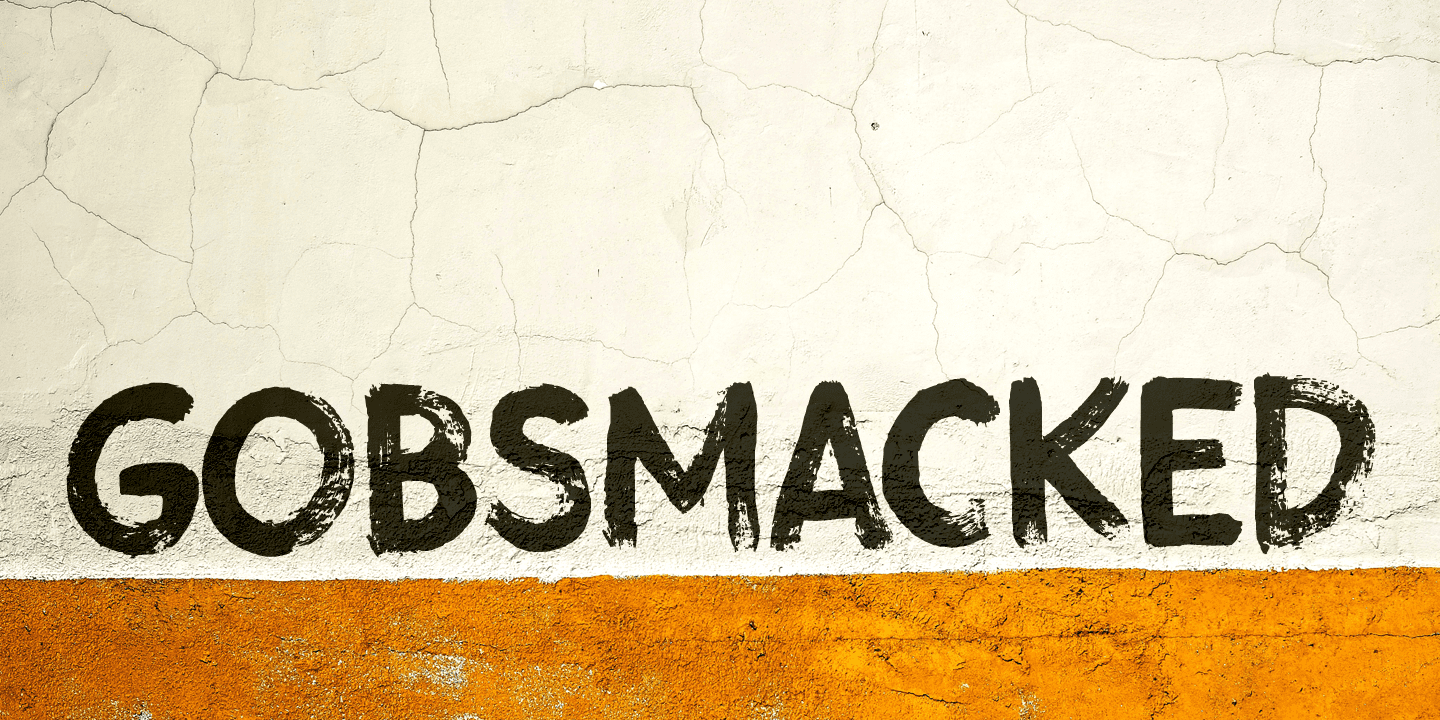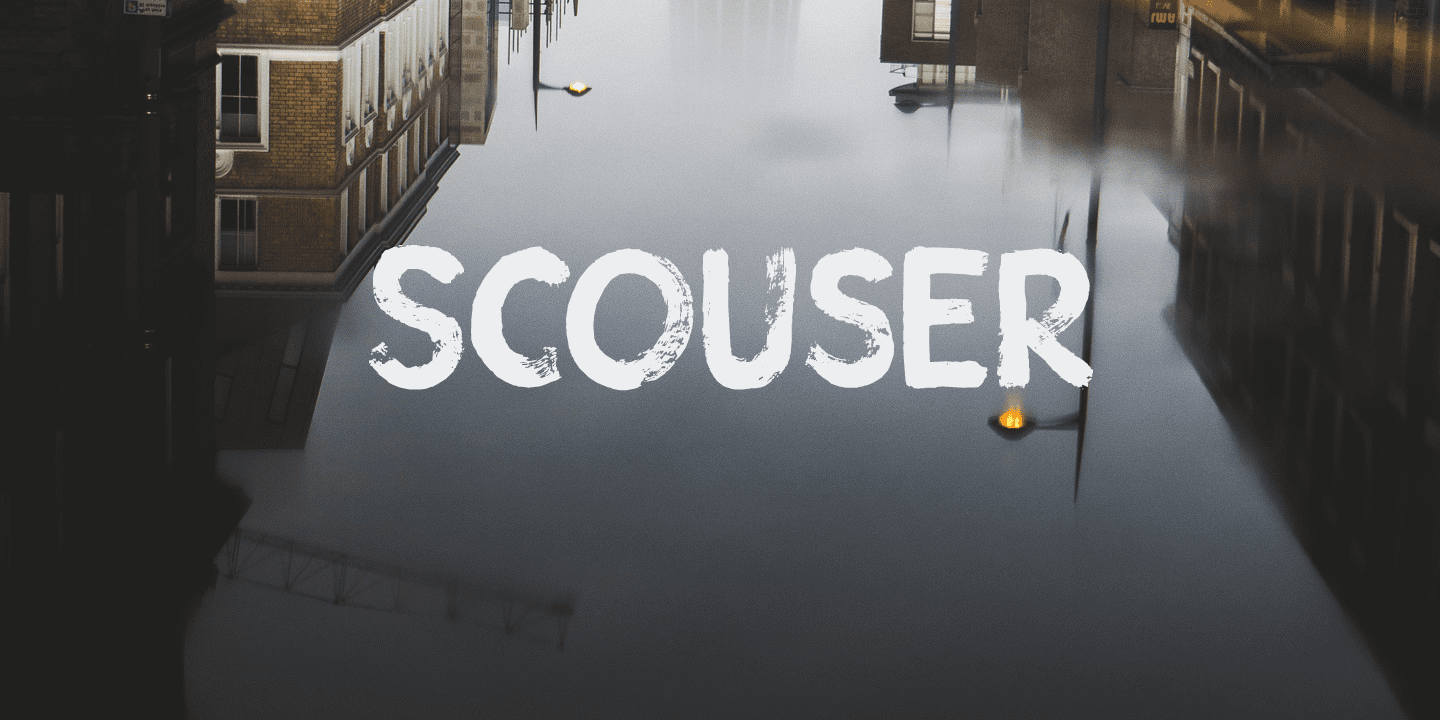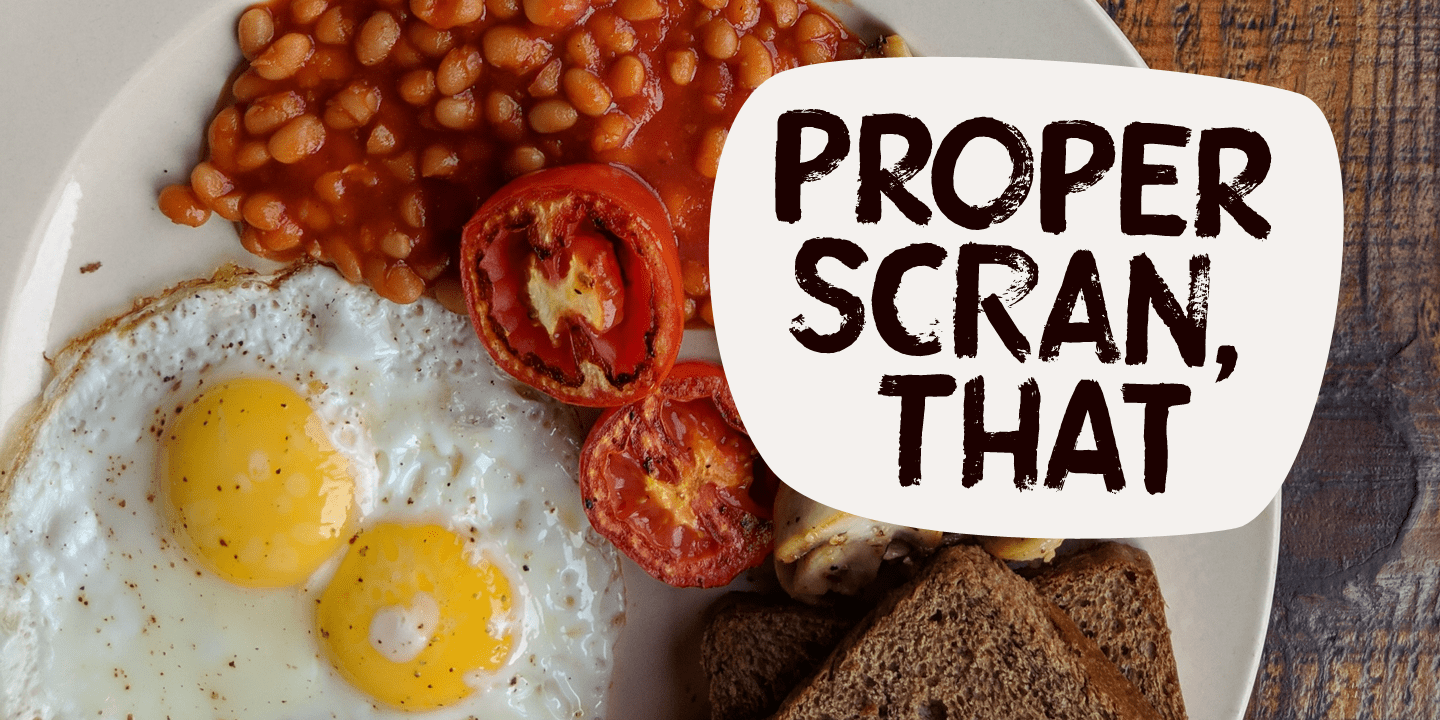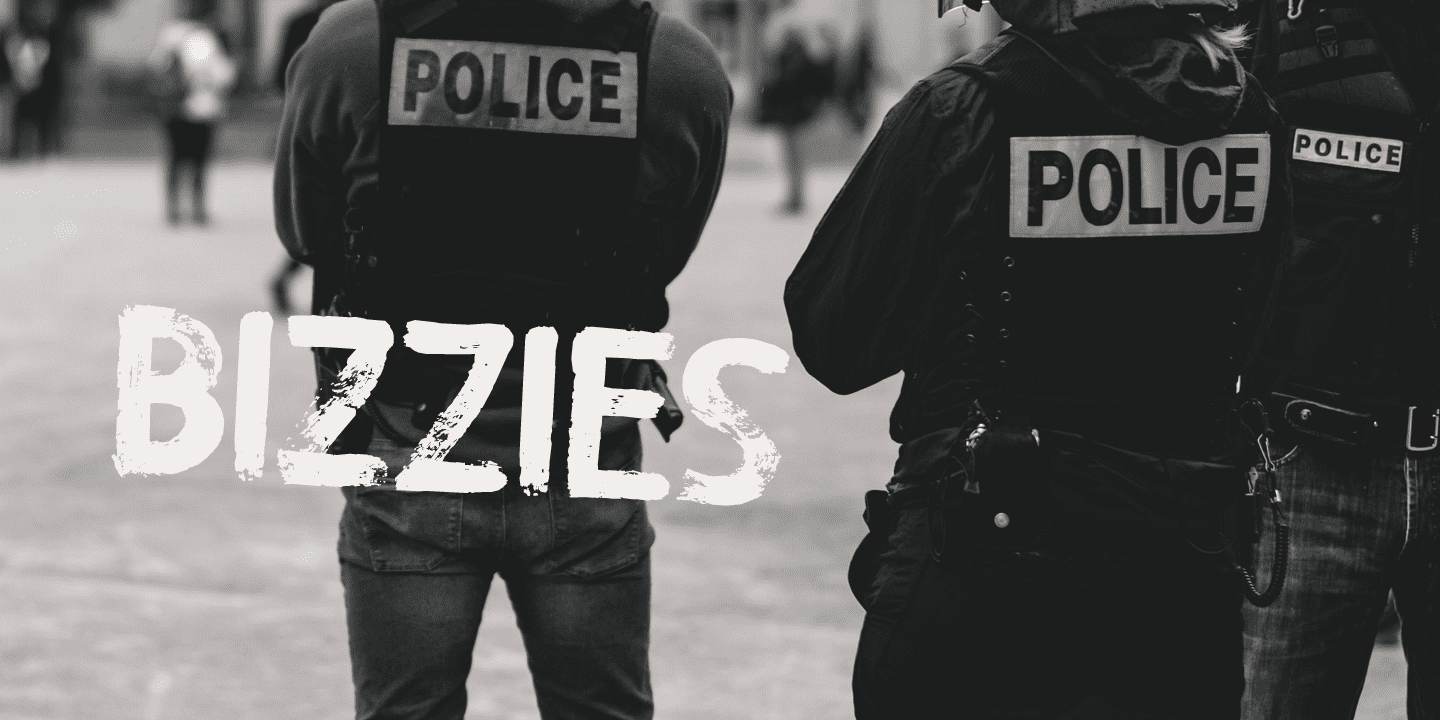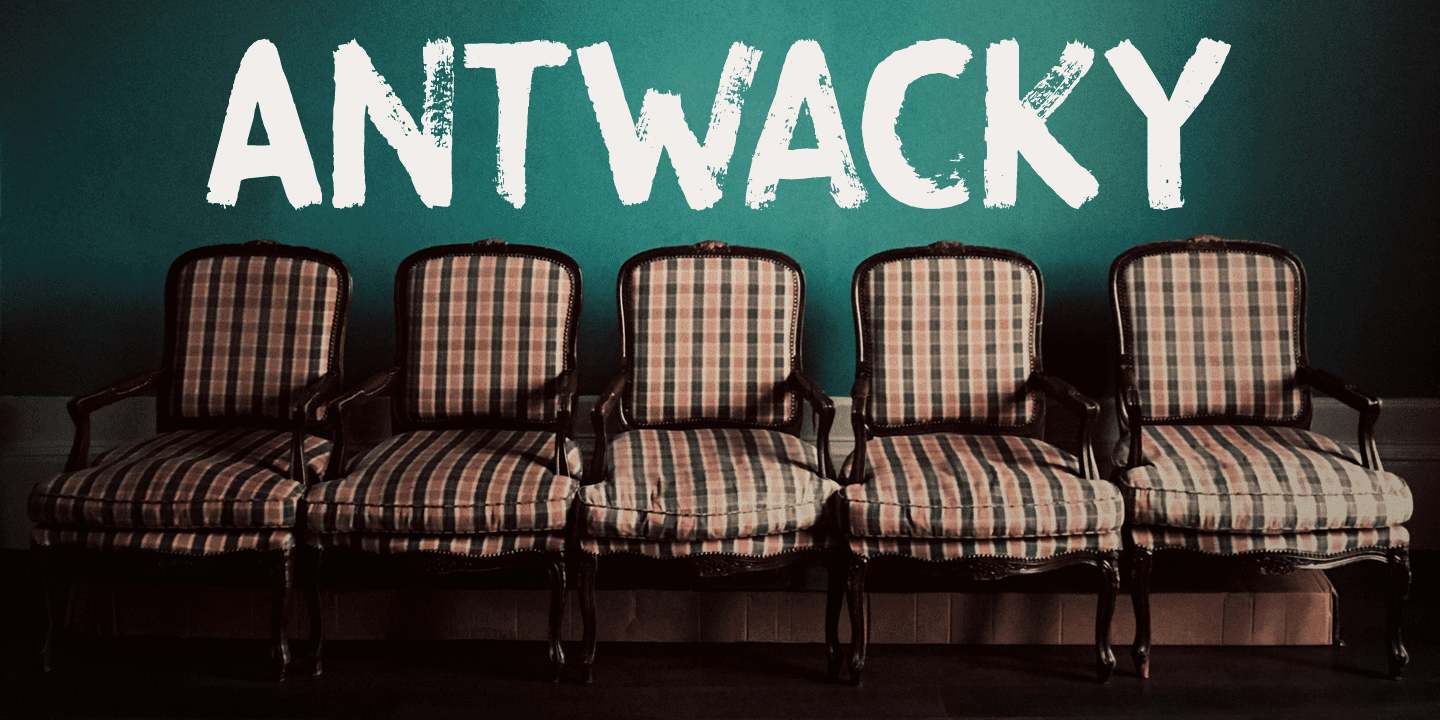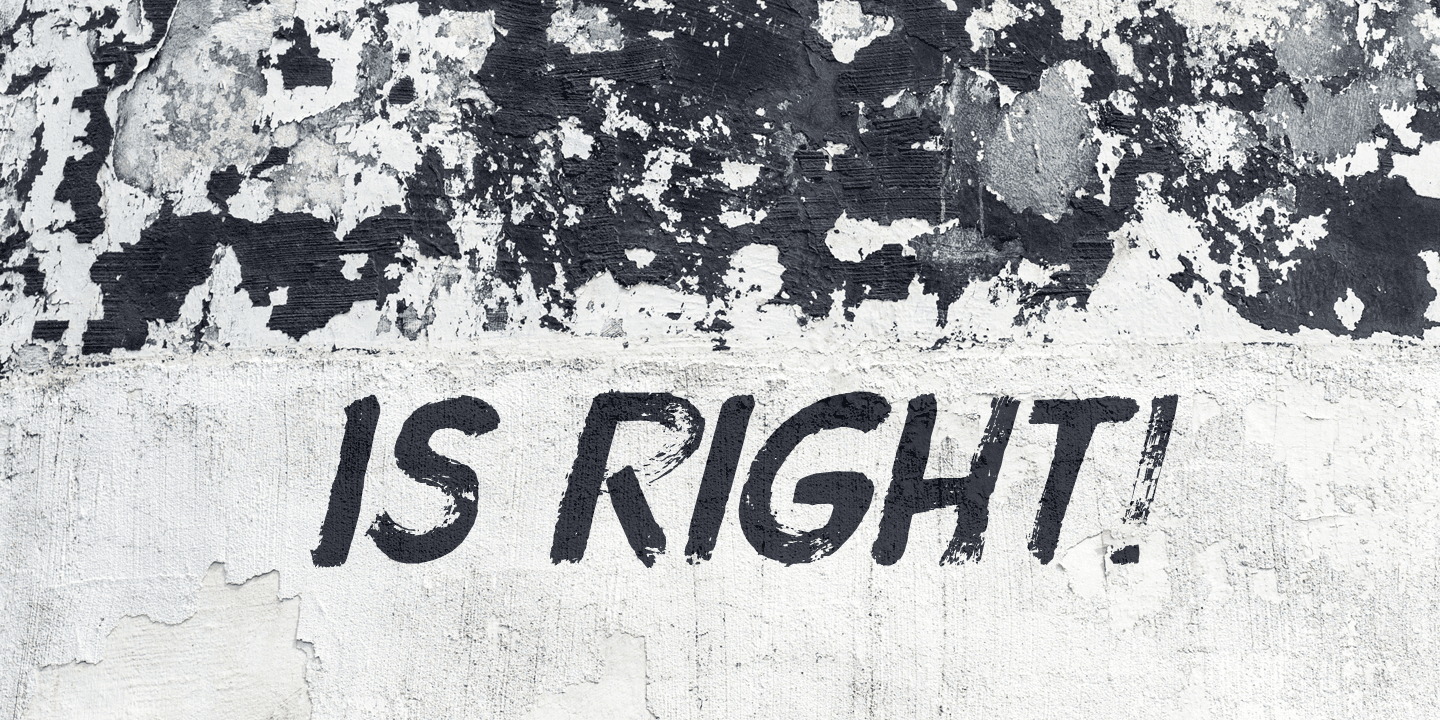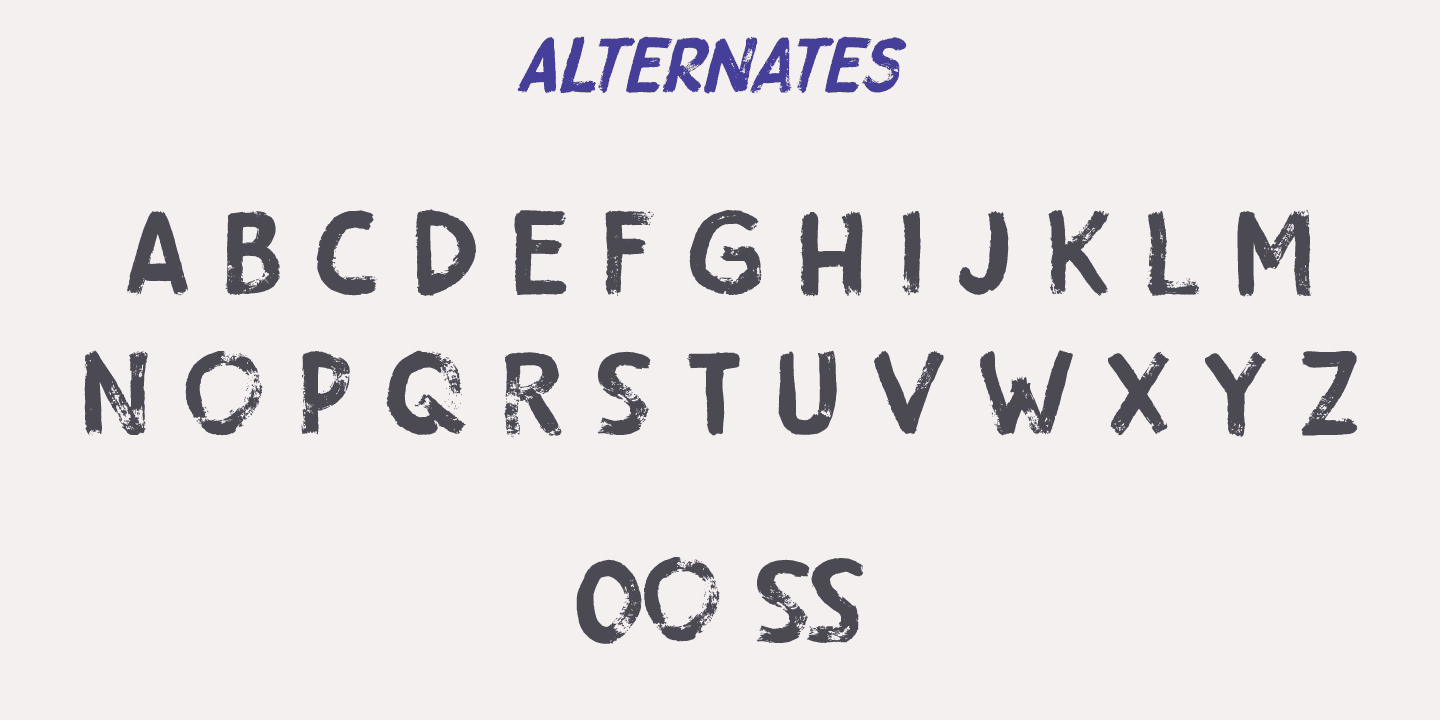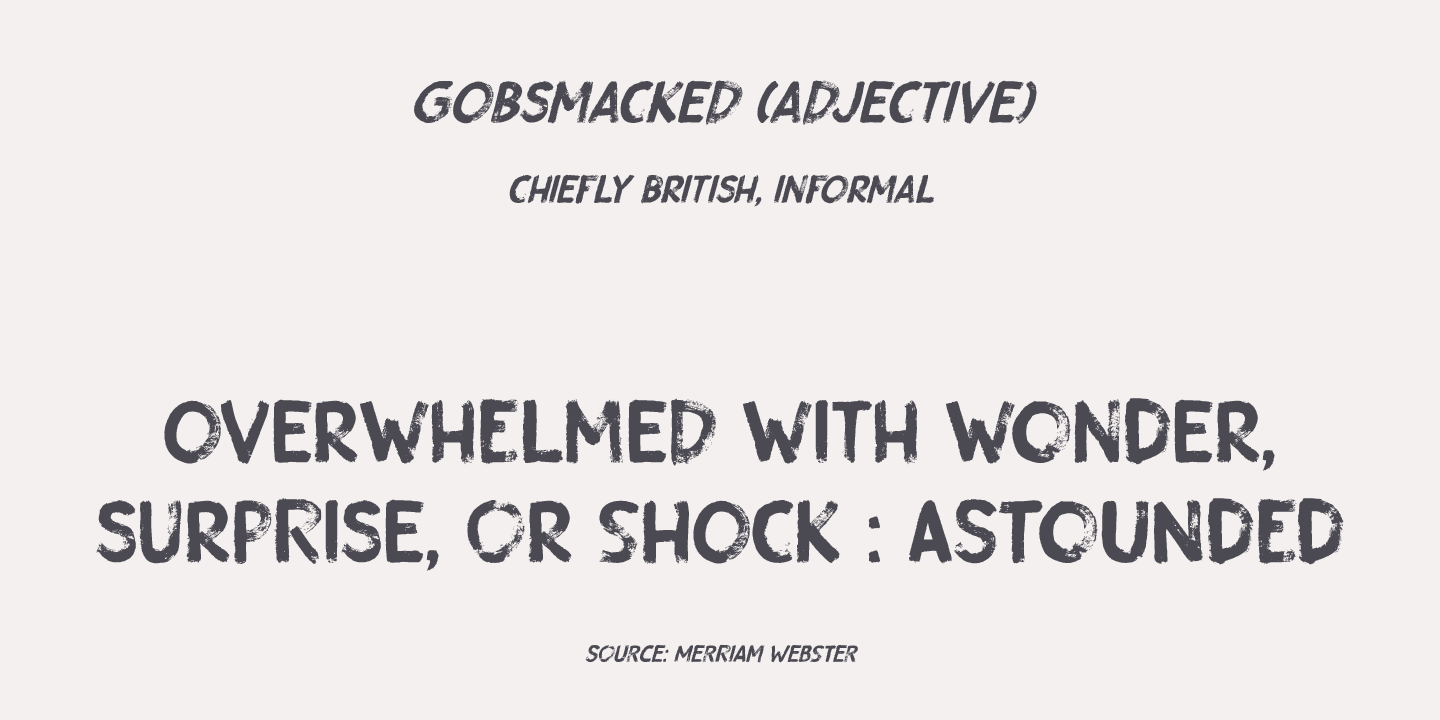
Gobsmacked font was created using a brush and black gouache. The result is a very eroded, very legible and quite unique brush font. I have created alternates for the lower case letters, plus two double letter ligatures (oo and ss). Use it for any design that needs a little brushwork; I am sure the result will leave you gobsmacked!